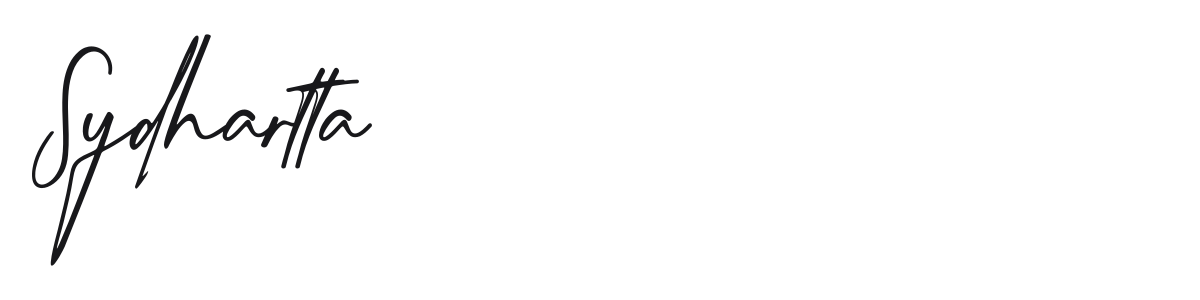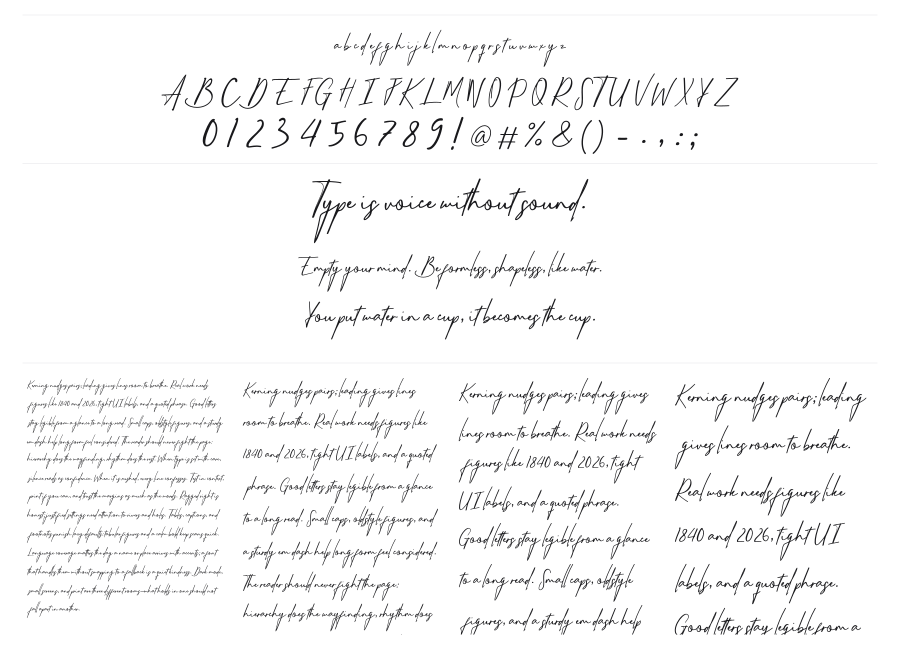
Sydhartta
Sydhartta is a casual handwritten script with the loose, sweeping energy of a personal signature. Long connecting strokes and extended descenders give it an expansive, free-flowing rhythm that feels effortless at large sizes. It suits wedding stationery, beauty branding, and lifestyle packaging where a hand-touched quality matters.